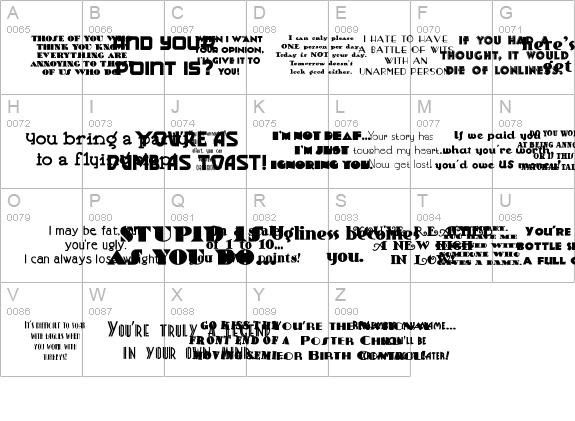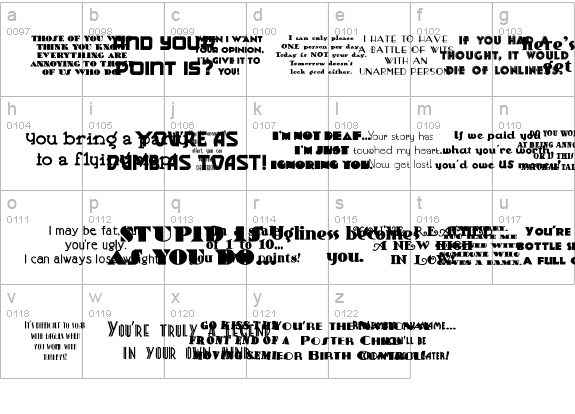
Introducing the Ultimate Sarcasm JL font, a witty and clever typeface that embodies the essence of sarcasm in its every curve and stroke. Designed for those who appreciate the art of dry humor and sardonic wit, this font is perfect for adding a touch of irony and satire to your designs. With its bold and exaggerated letterforms, Ultimate Sarcasm JL font demands attention and delivers its sarcastic message with flair. Each character is meticulously crafted to exude a playful yet edgy vibe, making it ideal for posters, social media graphics, and even branding projects that require a hint of irony. But what truly sets Ultimate Sarcasm JL font apart is its unique ability to capture the essence of sarcasm itself. From its exaggerated serifs to its subtly tilted angles, this font embodies the perfect balance between mockery and seriousness, allowing you to convey your sarcastic message with utmost precision. And the best part? Ultimate Sarcasm JL font is freely available to download at FontsMarket.com. You can now harness the power of sarcasm without any cost, and let your creativity flow without any restrictions. Whether you're a graphic designer, a writer, or simply someone who appreciates the beauty of sarcasm, this font is a must-have addition to your collection. So don't miss out on the opportunity to infuse your designs with the perfect dose of sarcasm. Download the Ultimate Sarcasm JL font today from FontsMarket.com and let your creativity speak volumes, with a touch of irony that is sure to leave a lasting impression.